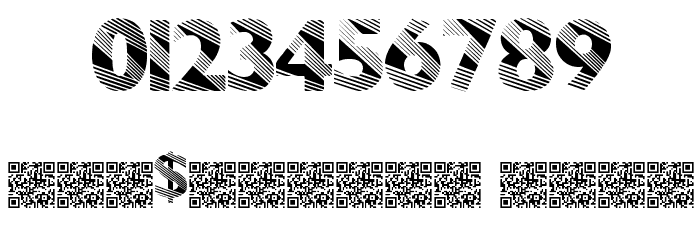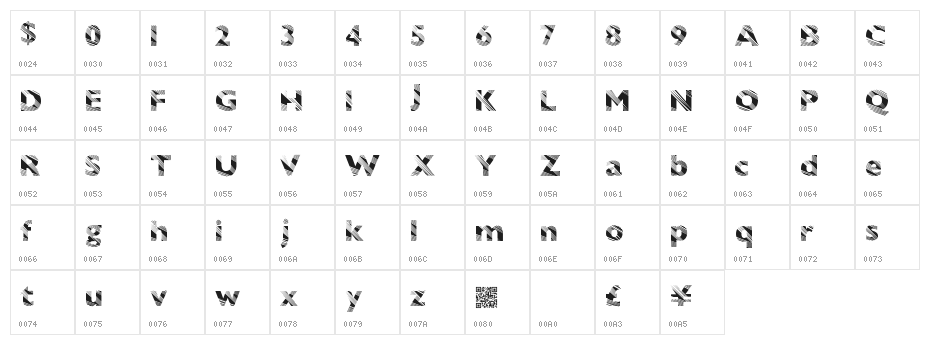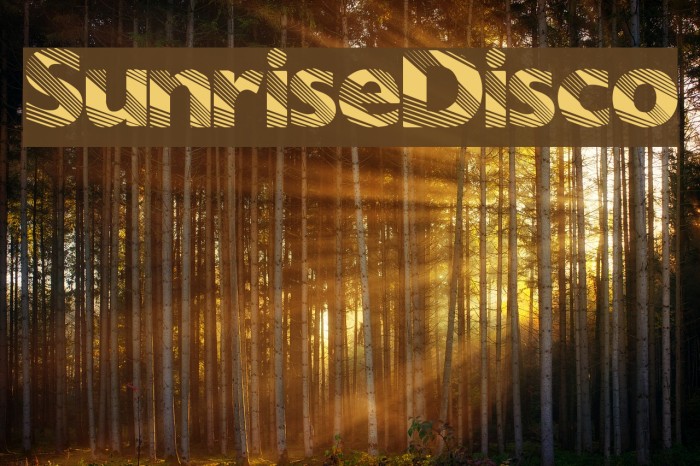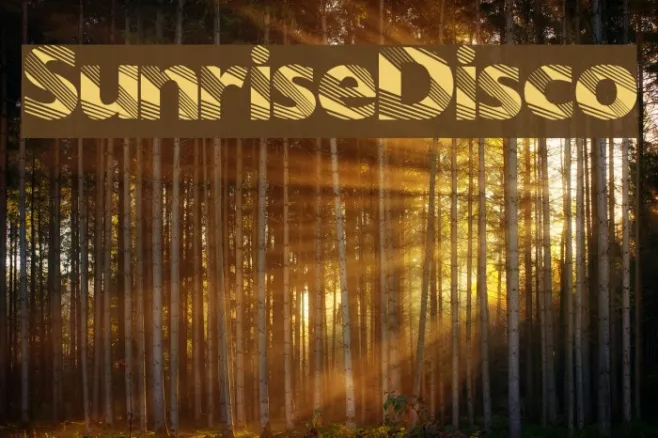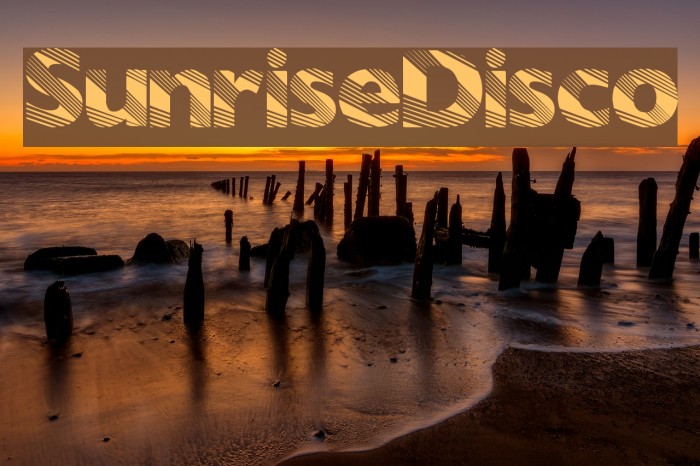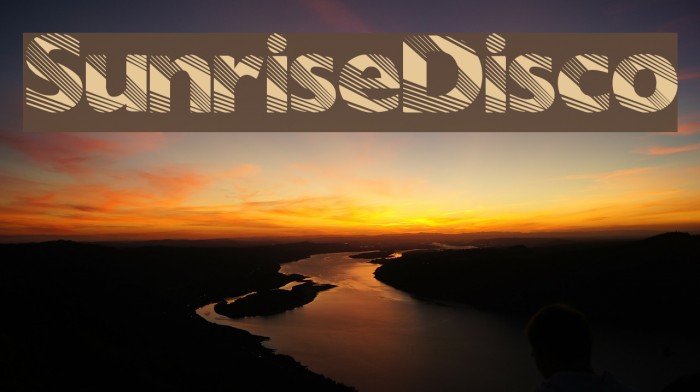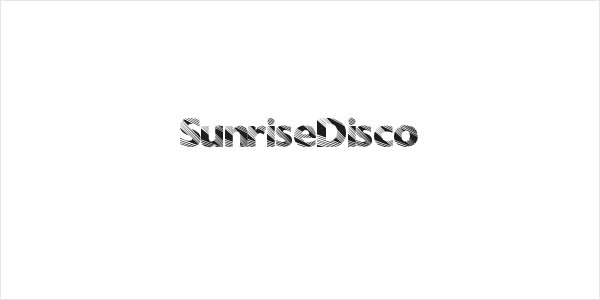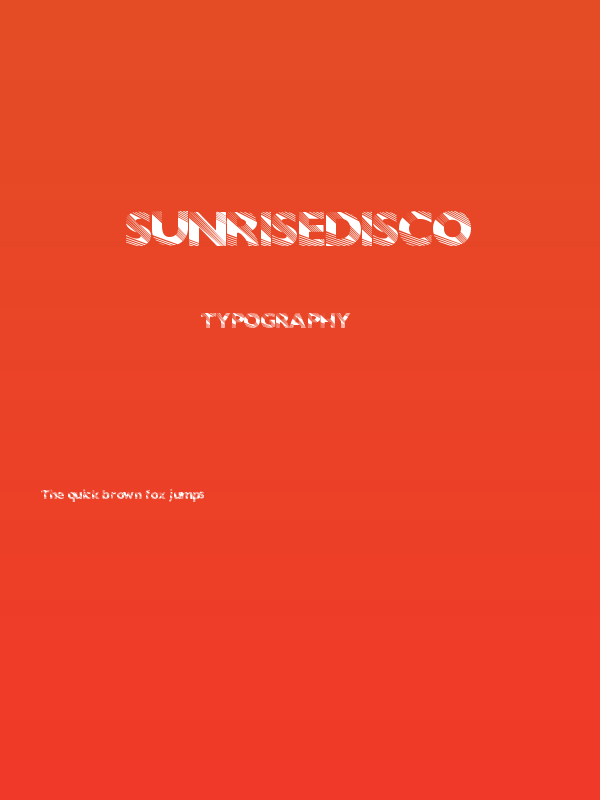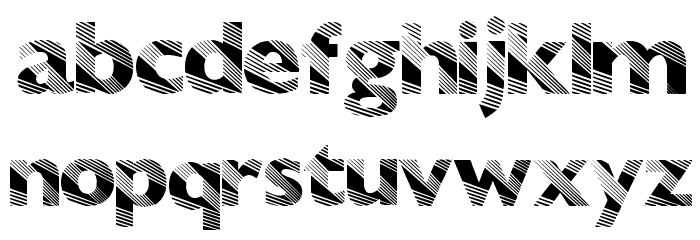
SunriseDisco Font
SunriseDisco Description
This font features a bold and dynamic design with a distinctive striped pattern running diagonally across each character. The uppercase and lowercase letters maintain a consistent style, creating a cohesive look. The numerals and special characters are designed to match the boldness and unique pattern of the alphabet, ensuring uniformity across all text elements. The font's playful and energetic appearance makes it stand out, ideal for projects that require a touch of creativity and flair. Its decorative style is perfect for capturing attention and adding a modern twist to any design.